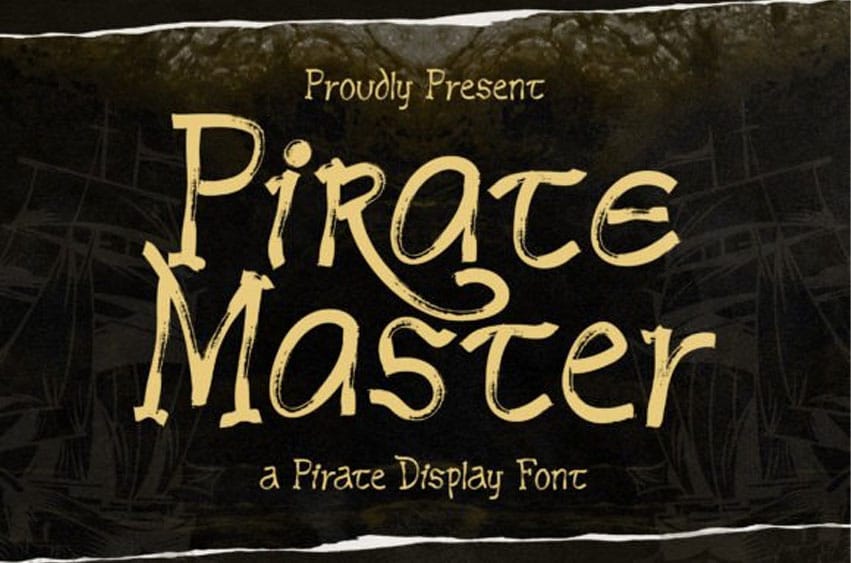
Pirate Master Font Ahoy, matey! Set sail with “Pirate Master” – a daring pirate display font that captures the spirit of high seas adventures! Embrace the fearless charm of “Pirate Master” as it transforms your projects into thrilling journeys.
Whether you’re creating pirate party invitations, captivating game titles, ship-worthy logos, or treasure hunt clues, this font will make your designs stand out with its adventurous and captivating style.